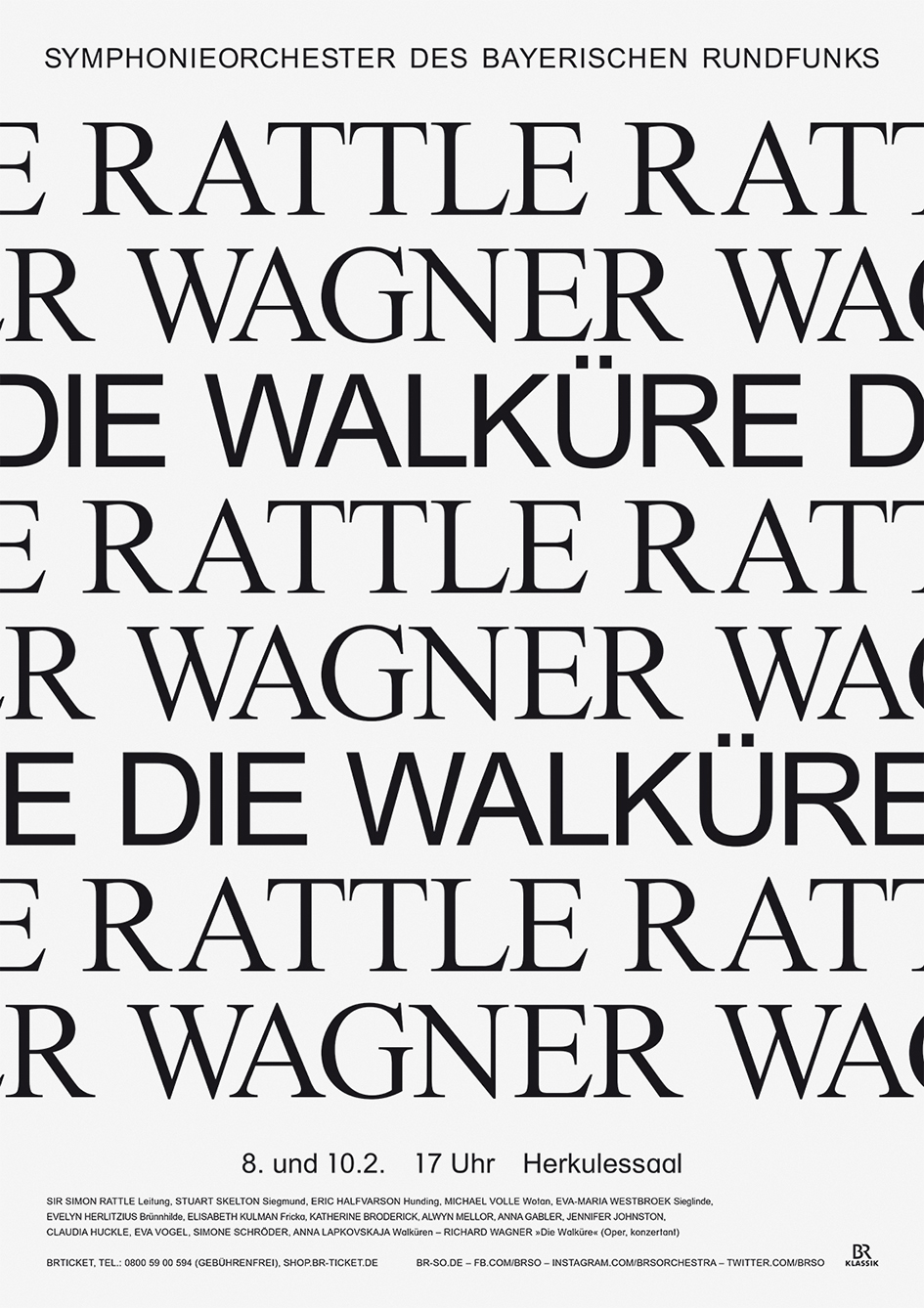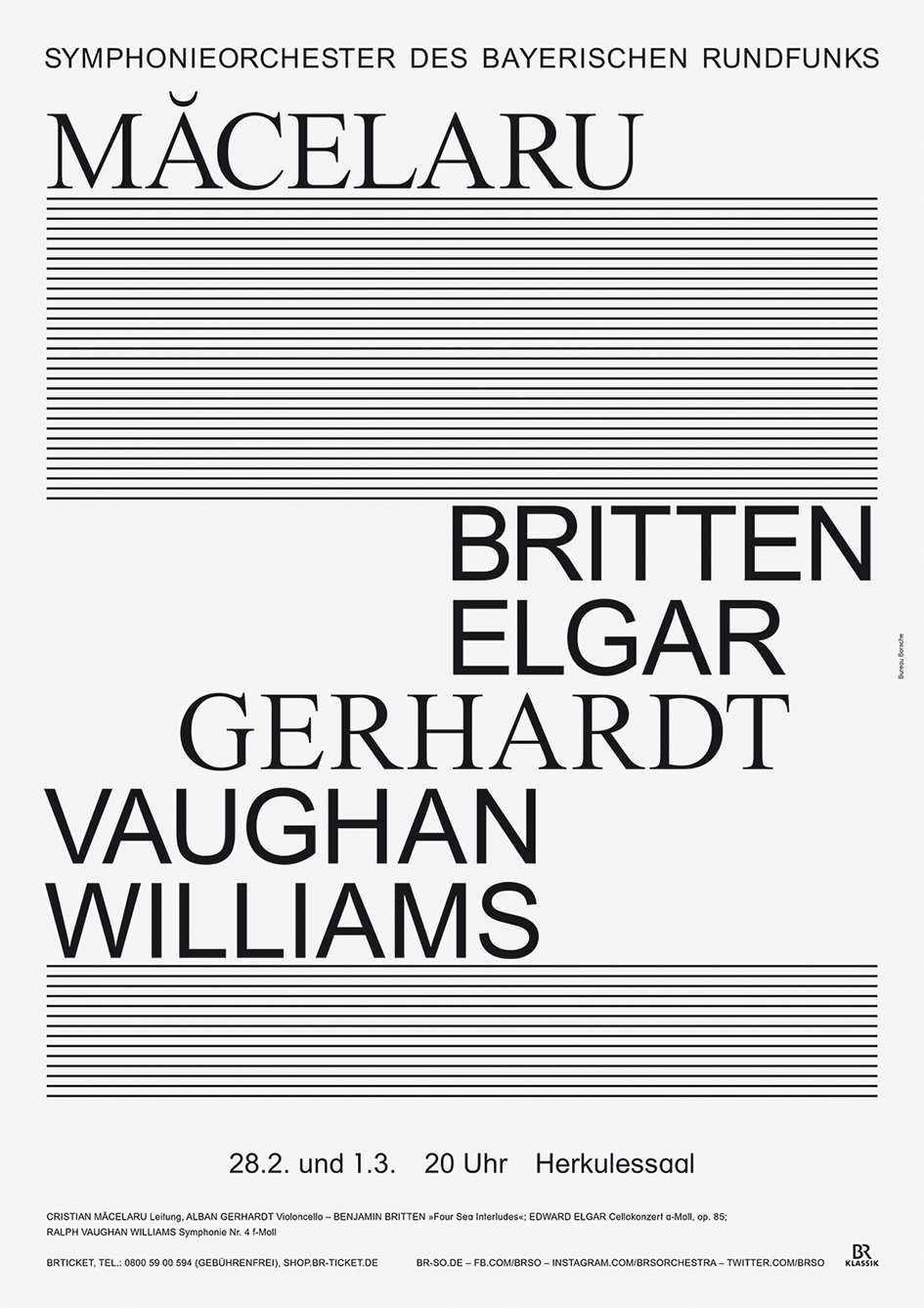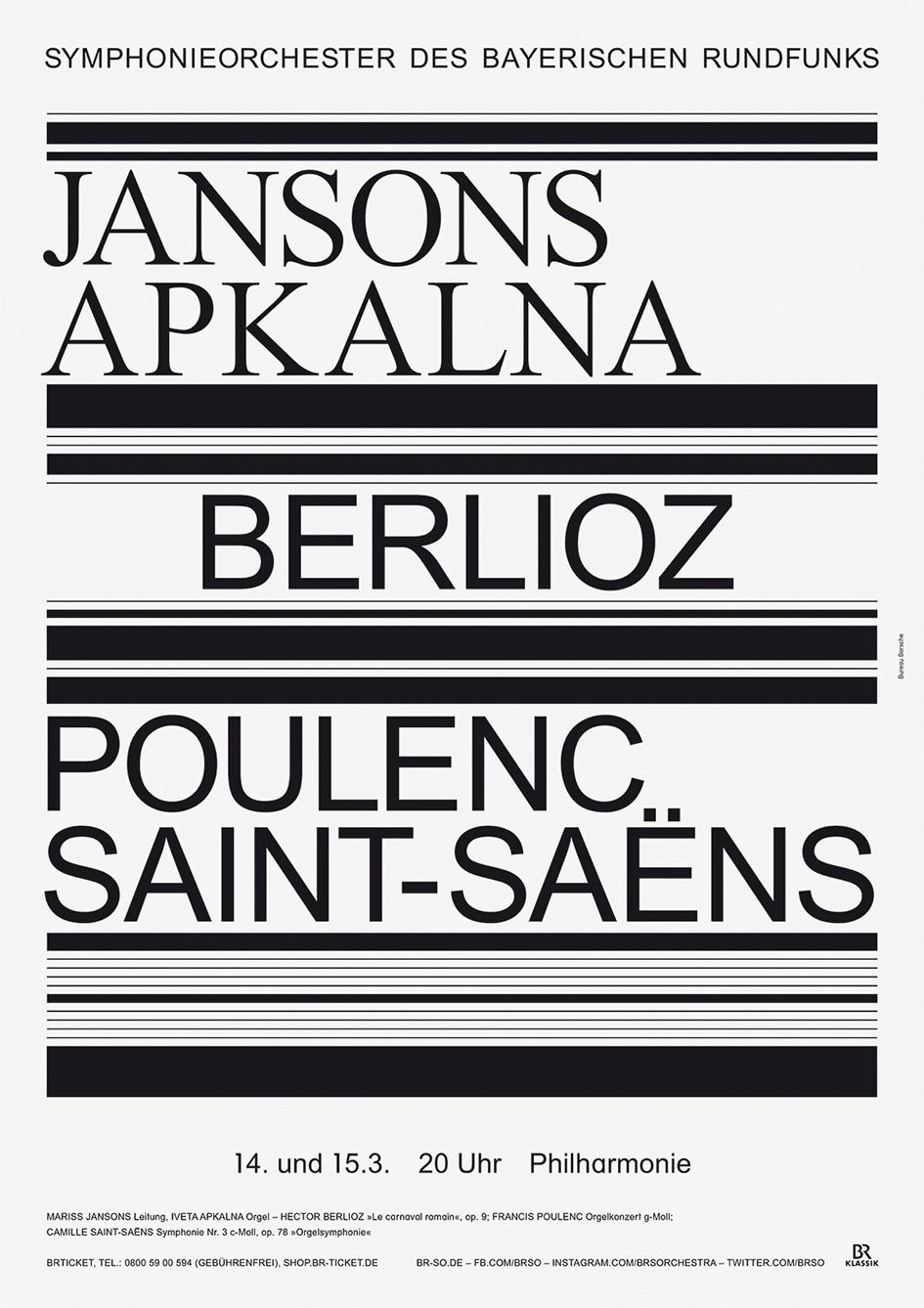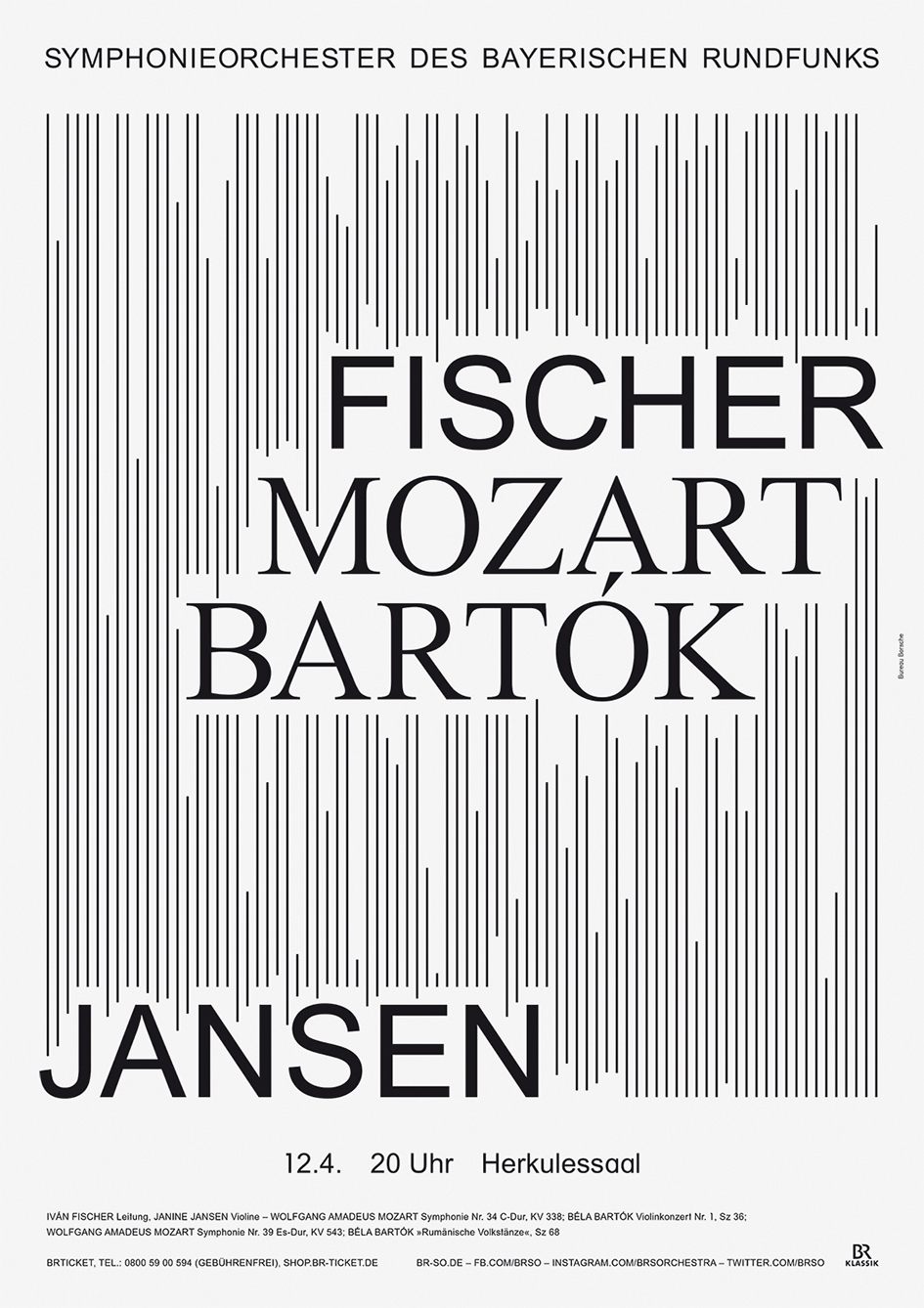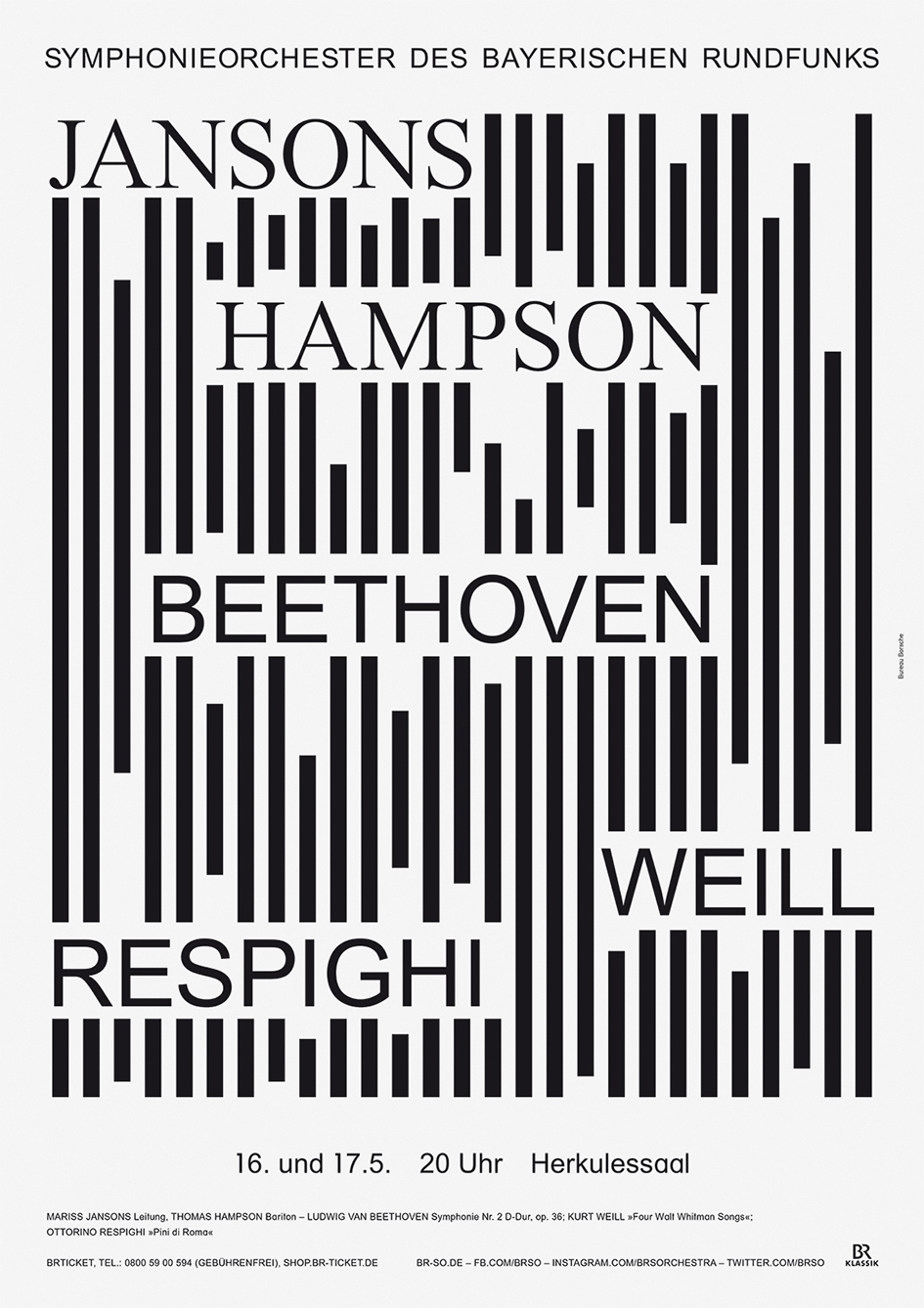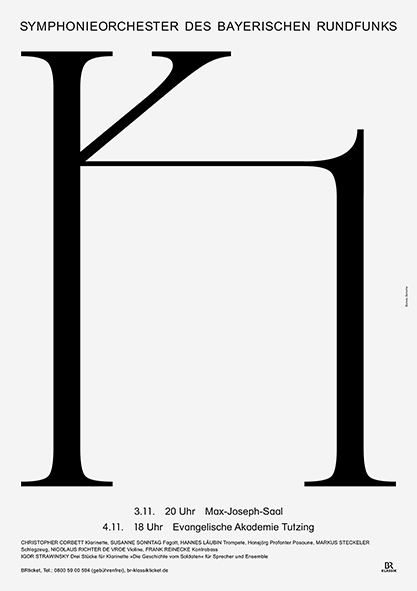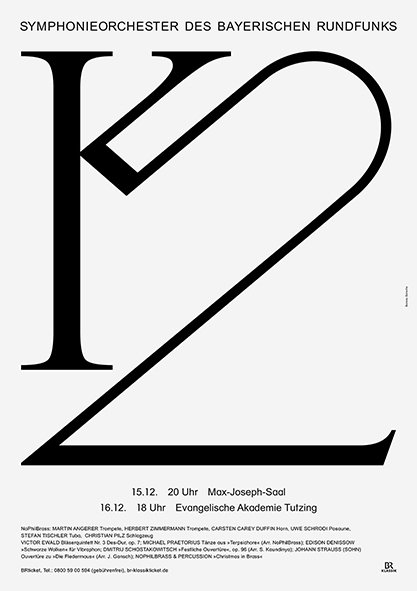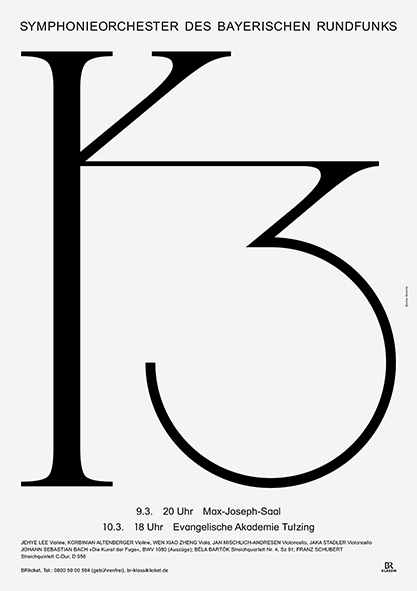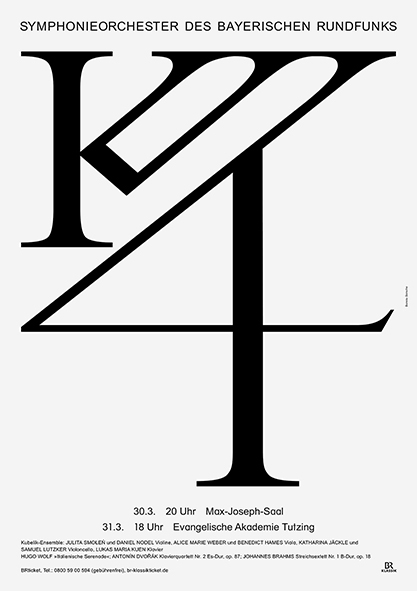
Instant classic: Bureau Borsche’s typographic posters for BR Symphonieorchester
Bureau Borsche, the graphic design studio which was founded in 2007 by Mirko Borsche goes uber typographic once again for it’s slick, elegant approach for BR Symphonieorcheste’s season.
The BR Symphonieorchester’s international acclaim reaches far, with yearly tour dates far-flung from its Munich base. As the only German orchestra to have had the honor of working with Leonard Bernstein and currently under the direction of Mariss Jansons the orchestra has a top-notch classical reputation to maintain. A long term client of Bureau Borsche since 2010, the BRSO’s signature black and white corporate design was inspired by its own stage presence: the monochrome suits of the orchestra.
“In this simplicity we found a way to generate personality without imagery by solely focusing on typography as the key to all information. Heavy arches and sharp edges in the customized font make the designs descriptive while underlining the bold and experimental look of the BRSO. To delve deeper into the essence of the orchestra, we crafted a customized font that combines both serif and grotesque to visualize the harmony and disharmony of the orchestra’s notes. This bold yet minimal design expands across all aspects of the BRSO media from print, to merchandise, and digital” explained BB.
Renowned for its versatility Bureau Borsche delivers once again with this season’s black and white typographic posters for the Symphonieorchester des Bayerischen Rundfunks.